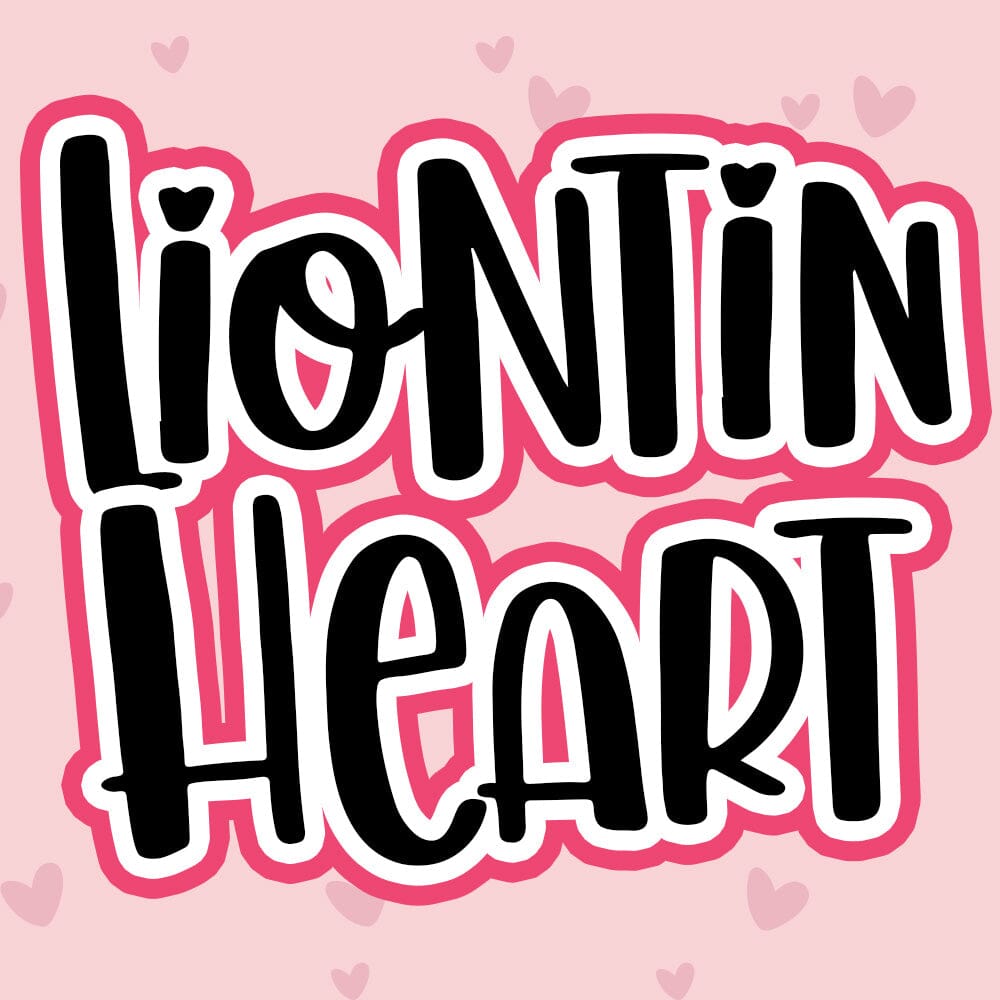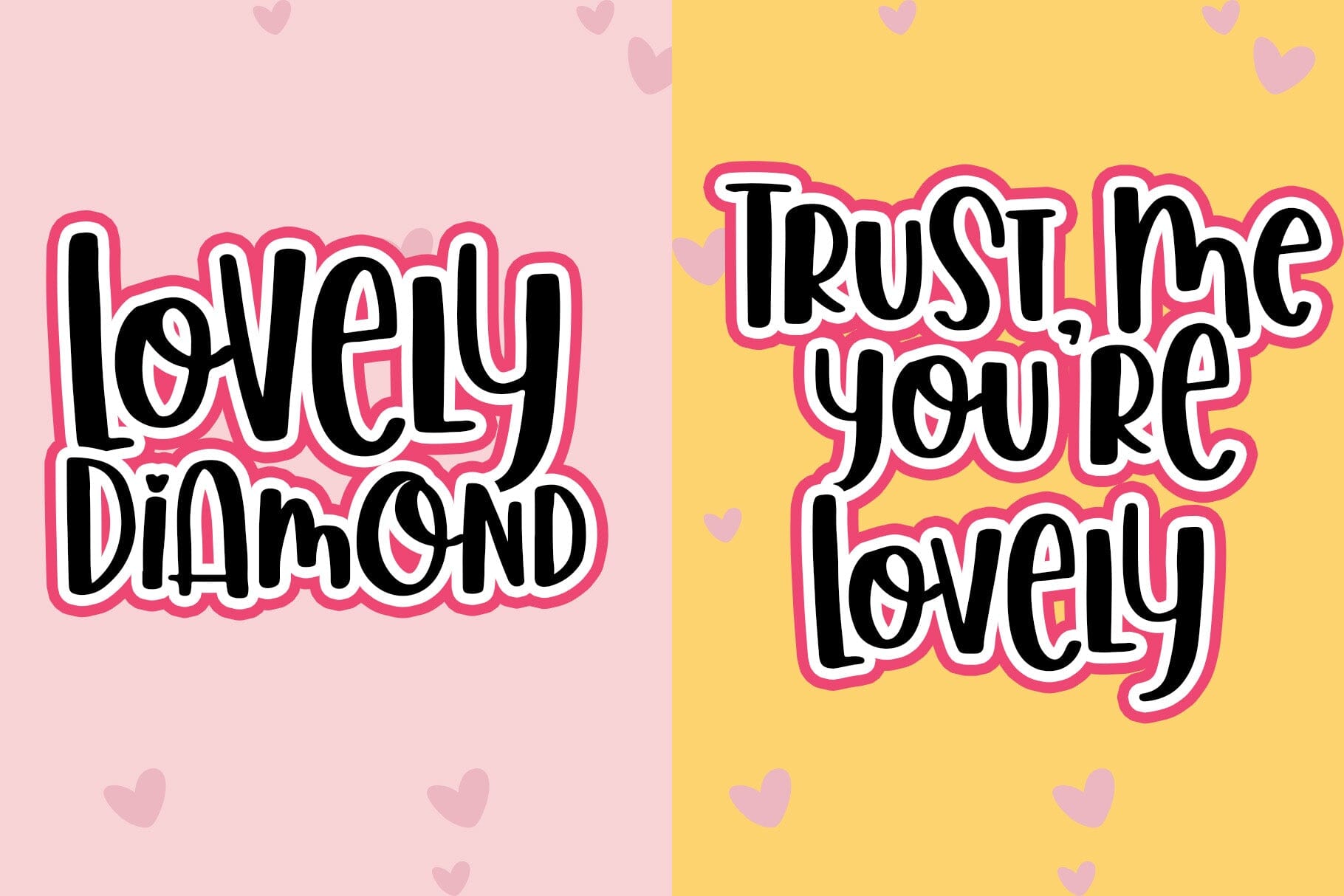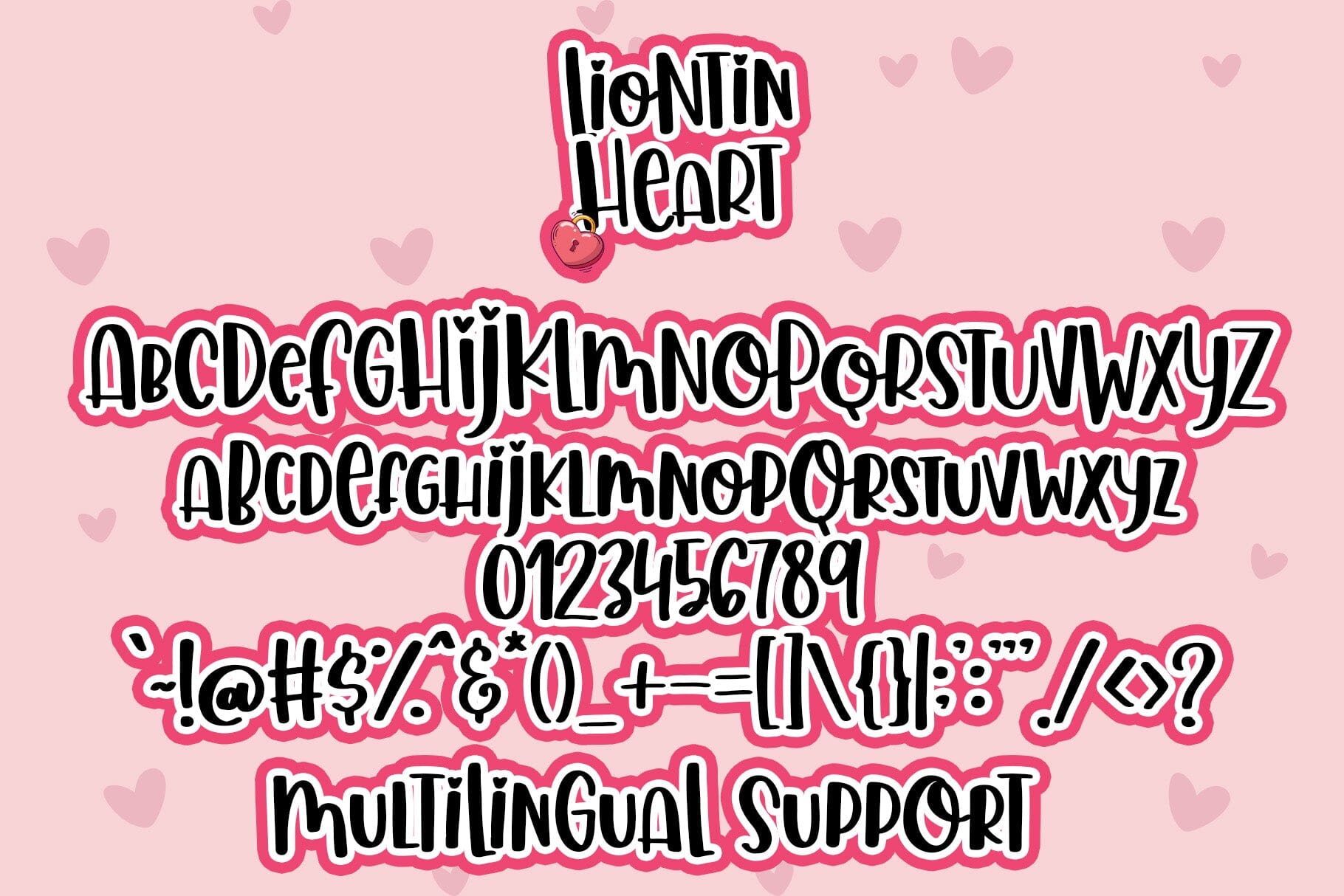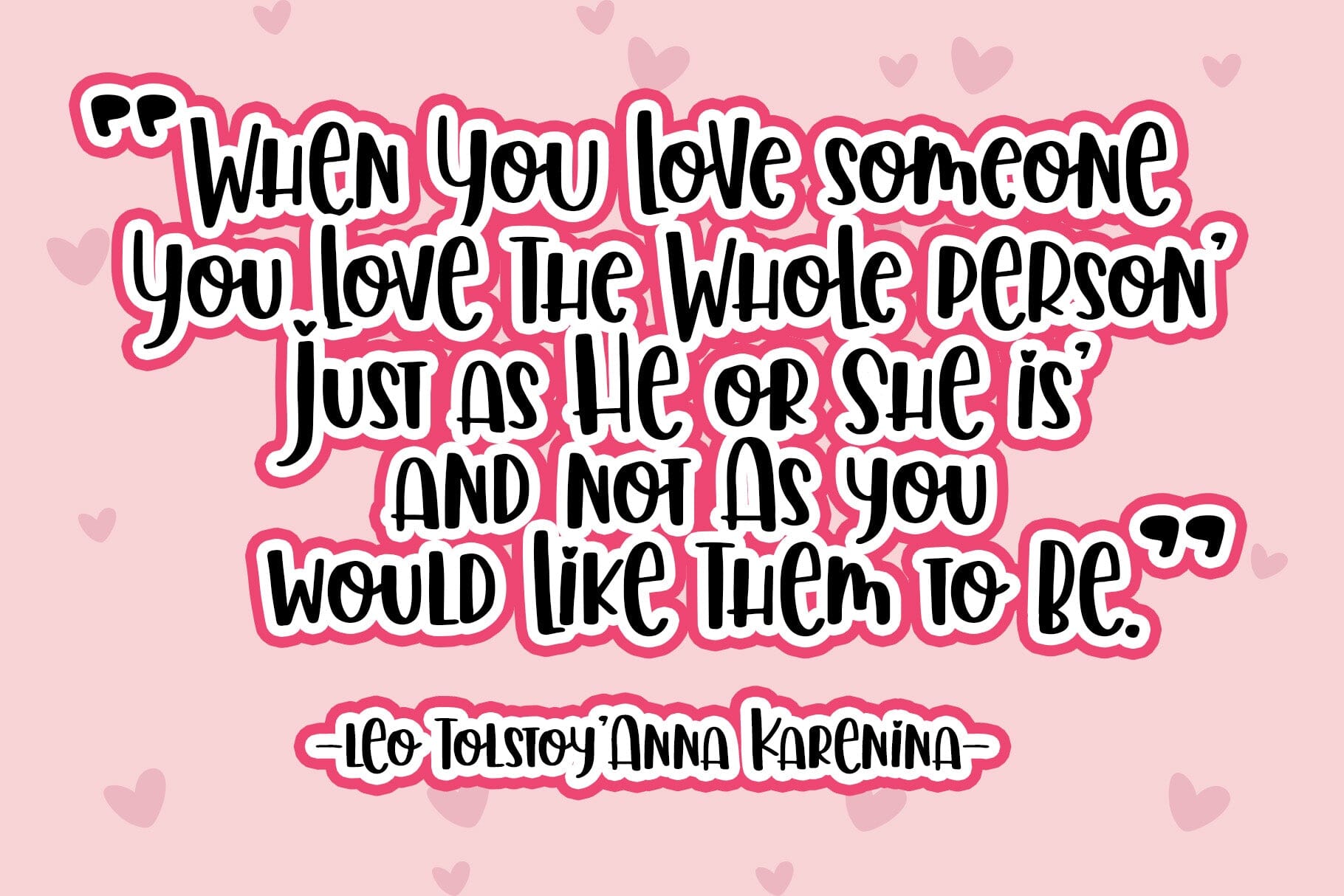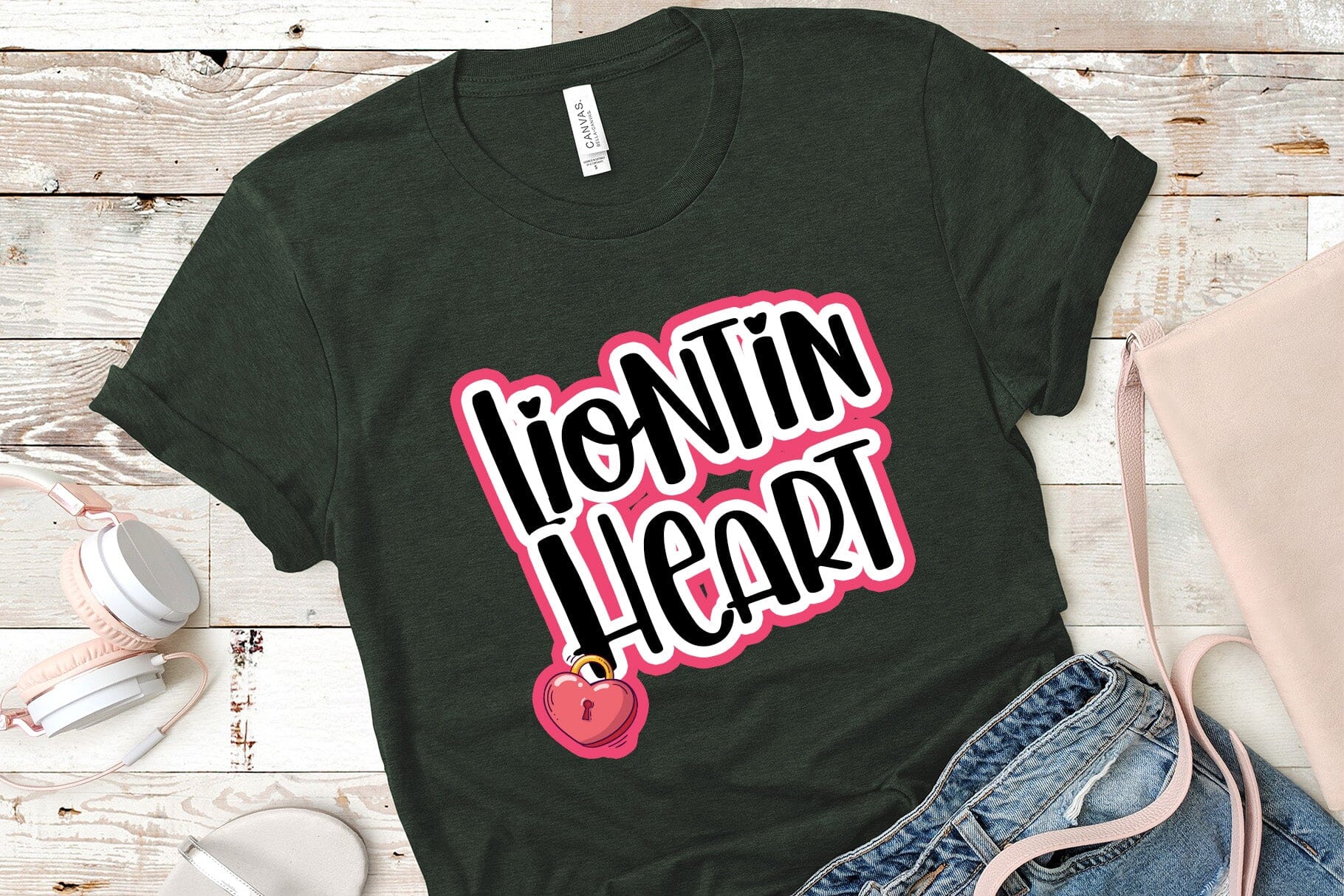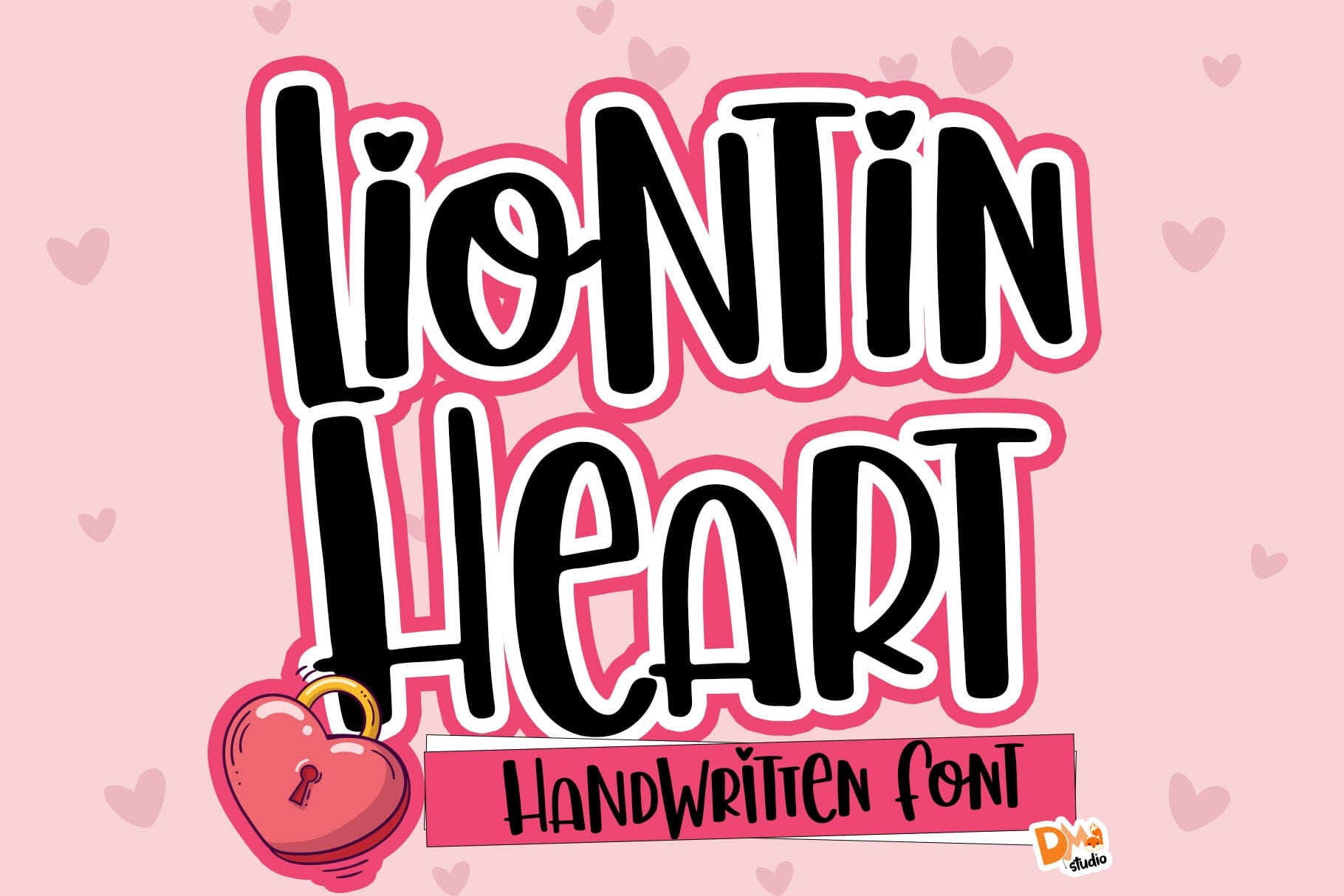
Liontin Heart Font
Liontin Heart Font: Elegant Typography with Hidden Love Details
Liontin Heart Font is a romantic serif typeface featuring subtle heart motifs in every character. Perfect for wedding invitations, Valentine’s Day designs, and luxury branding, this free font adds timeless elegance to your most cherished projects.
Why Choose Liontin Heart Font?
This isn’t just another script font – its unique design elements make it ideal for:
• Hidden Heart Details: Delicate heart shapes within A-Z letters
• Premium Wedding Stationery: Foil-pressed invitations and menus
• Luxury Brand Packaging: Perfume labels and candle jar designs
7 Creative Uses for Liontin Heart Font
1. Laser-cut wedding welcome signs
2. Engagement announcement social media templates
3. Vintage-style love letter stationery
4. Romantic novel cover designs
5. Boutique jewelry store logos
6. Anniversary photo book text
7. Custom wine bottle labels
Pro Design Tips
• 🎨 Color Pairing: Use #FF69B4 (hot pink) with gold accents
• 🎨 Size Optimization: Minimum 18pt size for visible heart details
• 🎨 Texture Effects: Add gold foil overlays in Photoshop